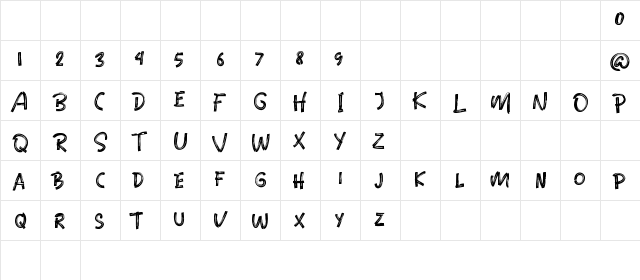
BlinkStones Regular
| Designer | Lettersiro 2018 |
Design Context for BlinkStones Typeface
BlinkStones is a composed and adaptable typeface that performs quietly and consistently across a wide range of design contexts.